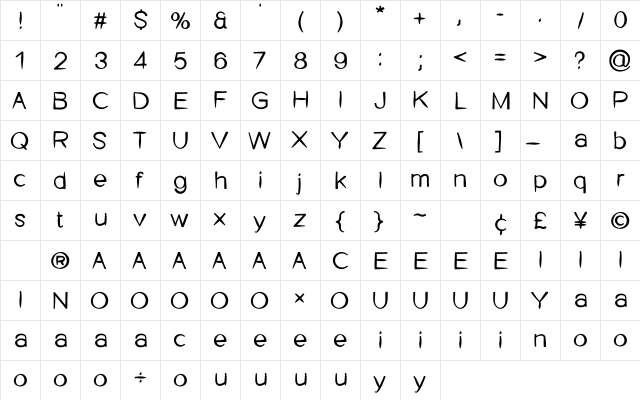
ST Hanekam Paint
| Foundry | Idelaborate |
| Designer | Sidiq Kamal Nurmawan |
Design Context for ST Hanekam Typeface
ST Hanekam is a composed and adaptable typeface that performs quietly and consistently across a wide range of design contexts.